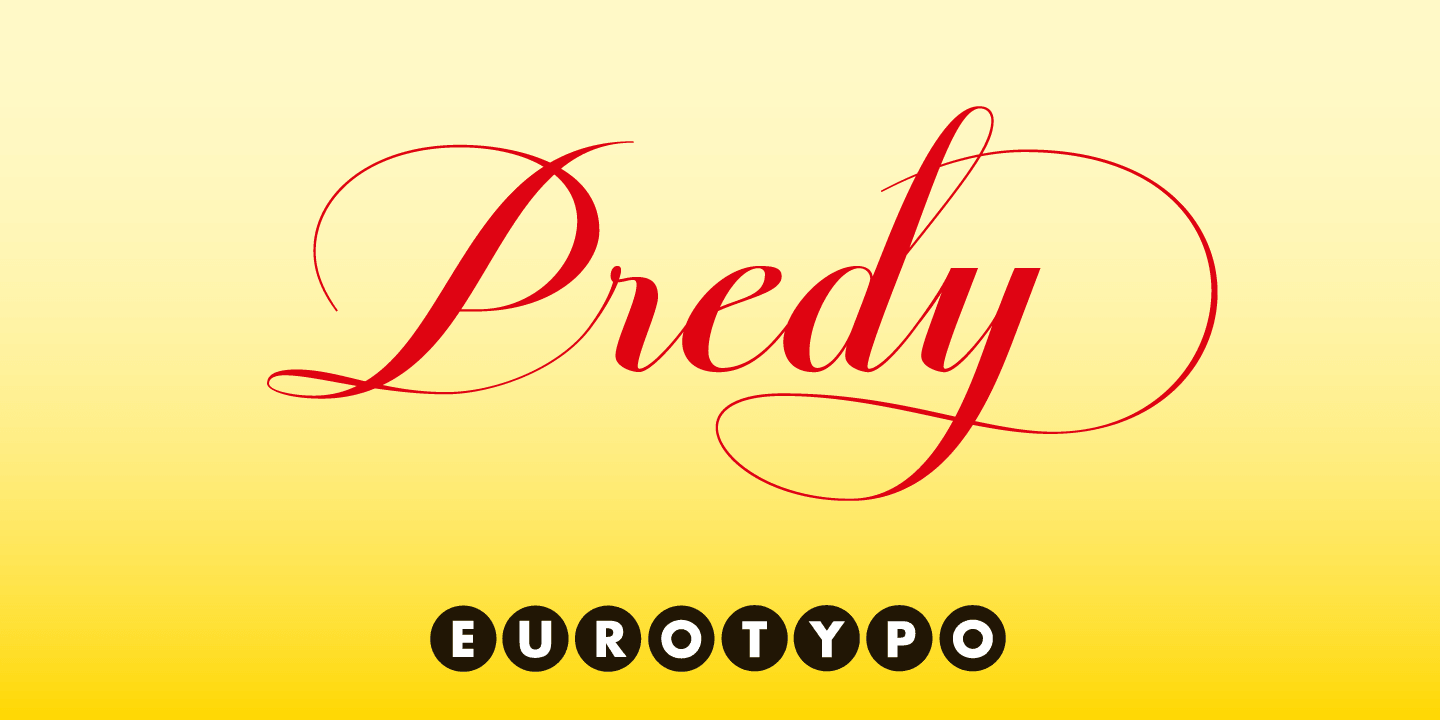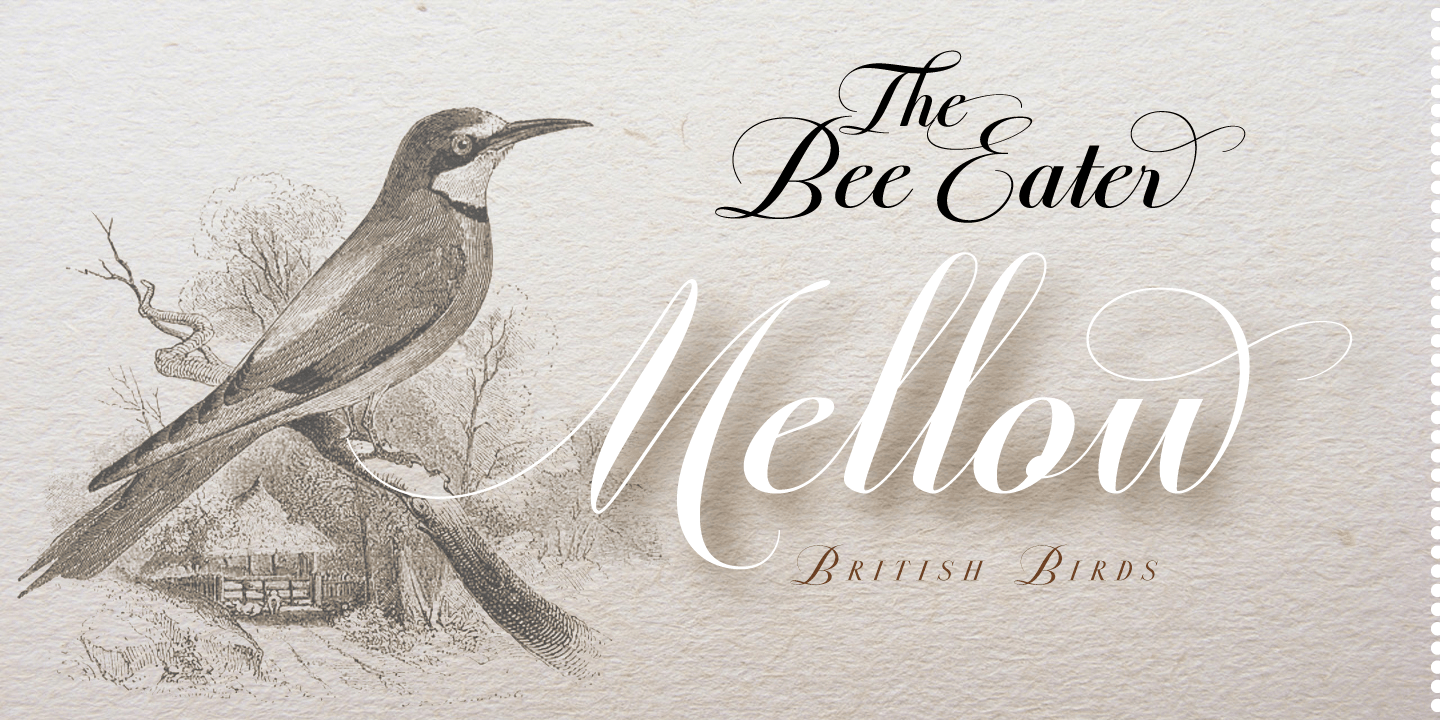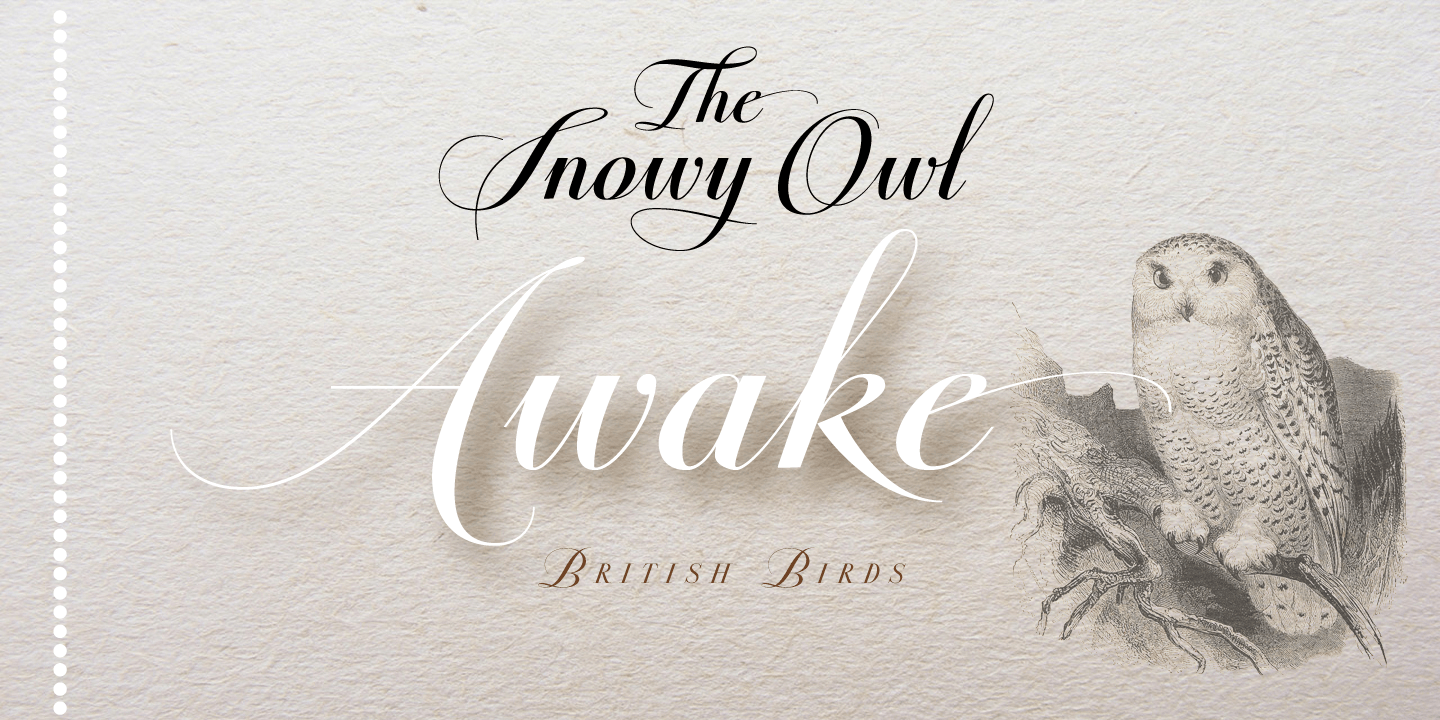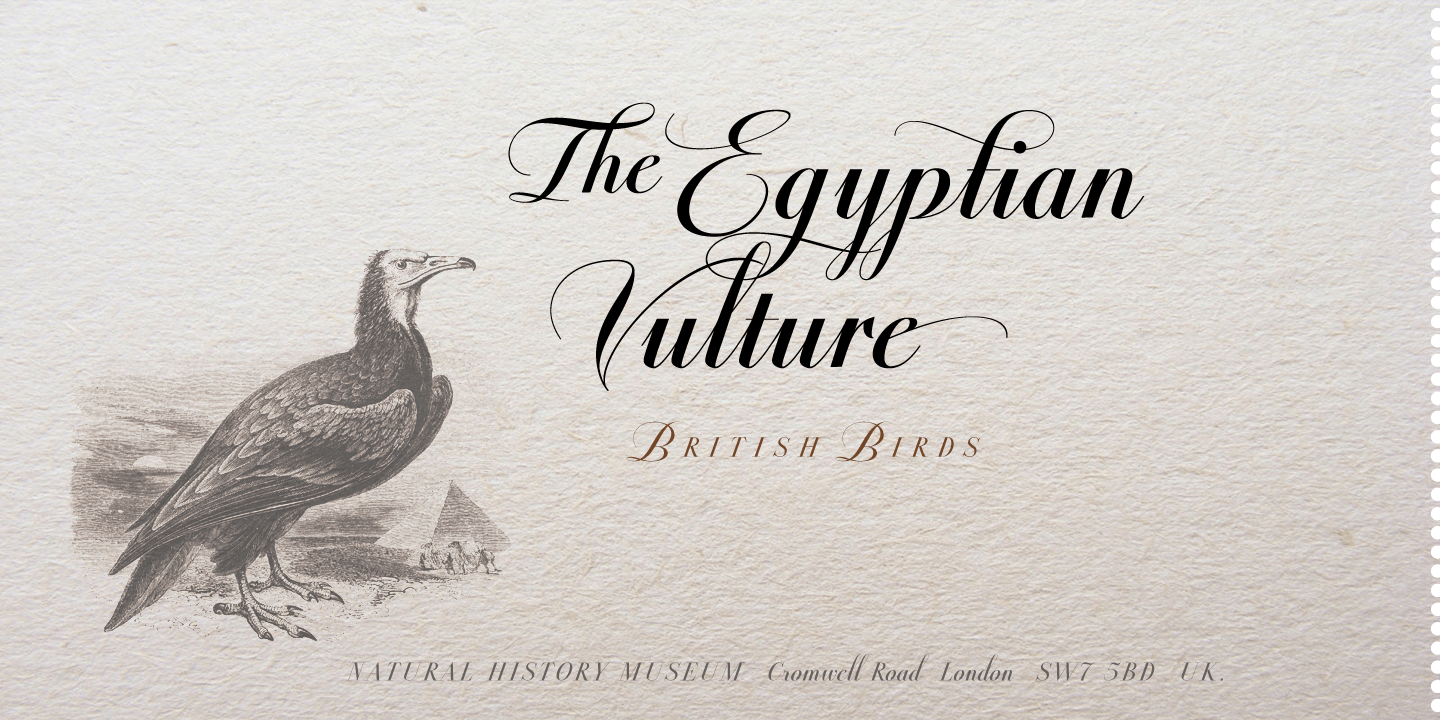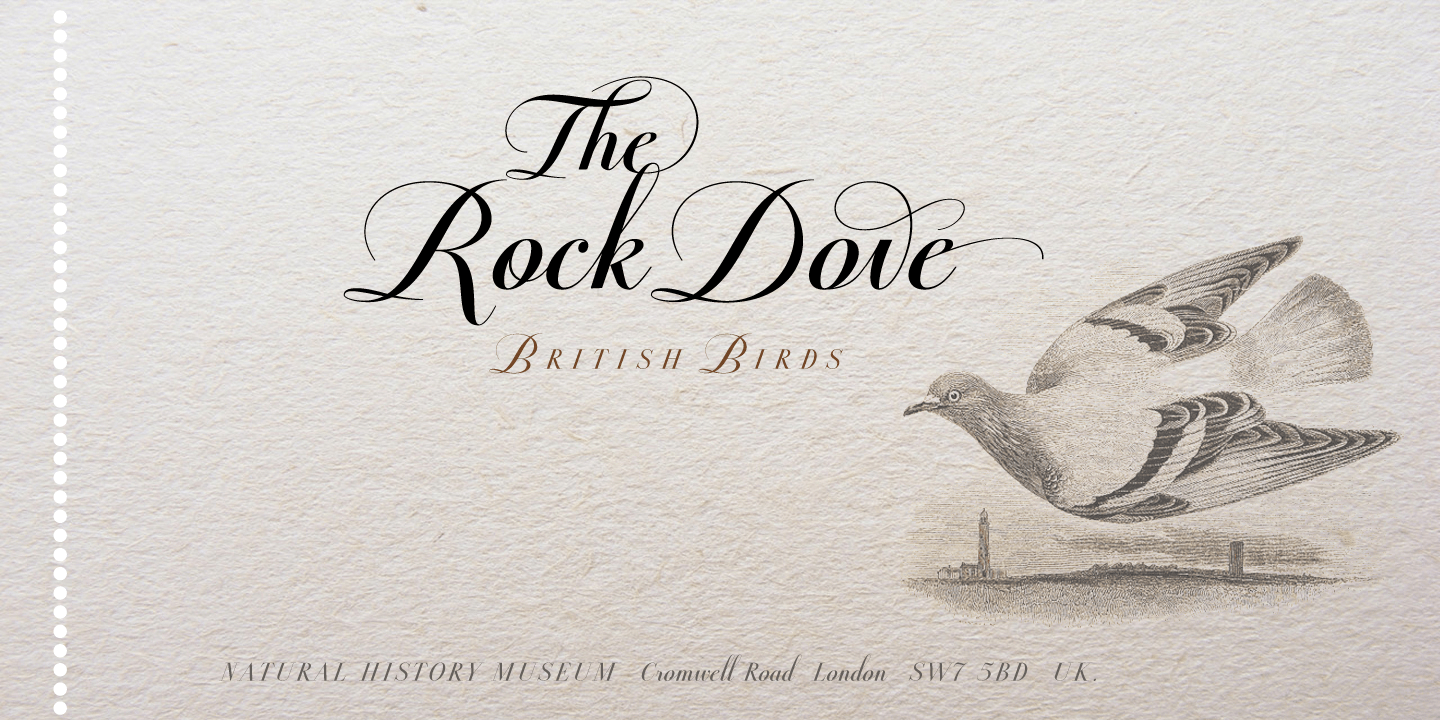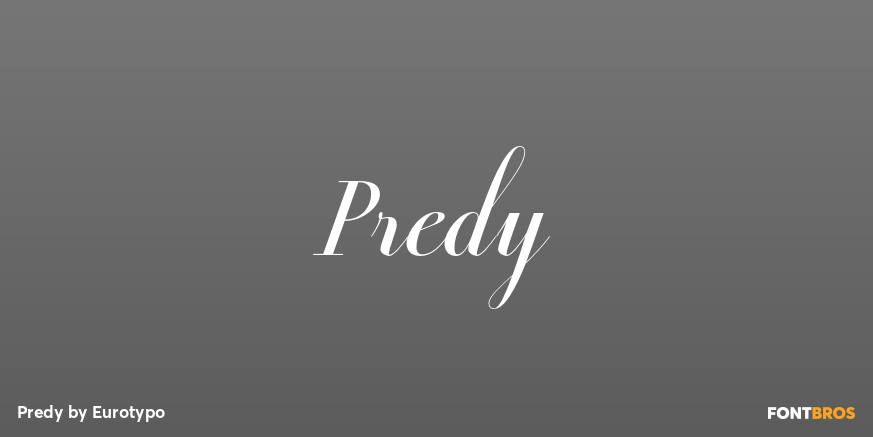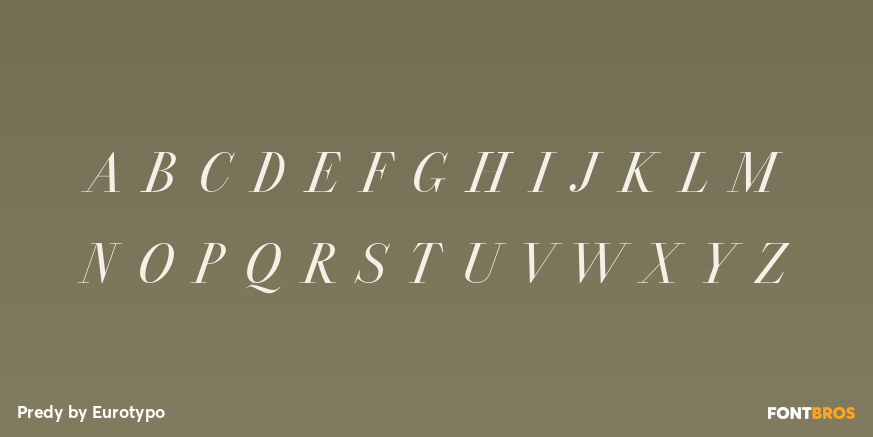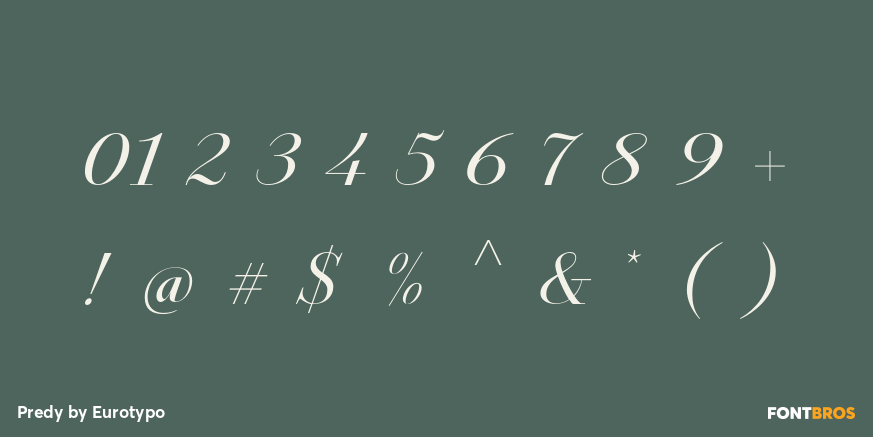
Predy
Font Family by Eurotypo
In the era of digital types, the round handmade cursive continues to intrigue many type designers, probably by their beautiful and graceful calligraphic origins. However, what is certainly true, is that all good traditional pen-formed script may be suitable for a wide range of fine graphic works.
The Predy typeface is based on the famous style of the 19th Century: The English handwriting made by pen. It is a connected cursive in the tradition of the ronde. This typeface is constructed upon their vigorous ascenders with loops, two times the lengths of the descenders with an extremely short x-height. The uppercase is a classical modern roman typeface (Didona) that are accompanying with a set of accurate flourished capitals as alternates of the calligraphic style.
Predy font comes with a set of decorative glyphs including old style figures, terminal letters, ligatures, alternates and swashes. This font will lend elegance and sophistication to a wide variety of design projects like wedding, invitations cards, logotypes, packaging and posters.